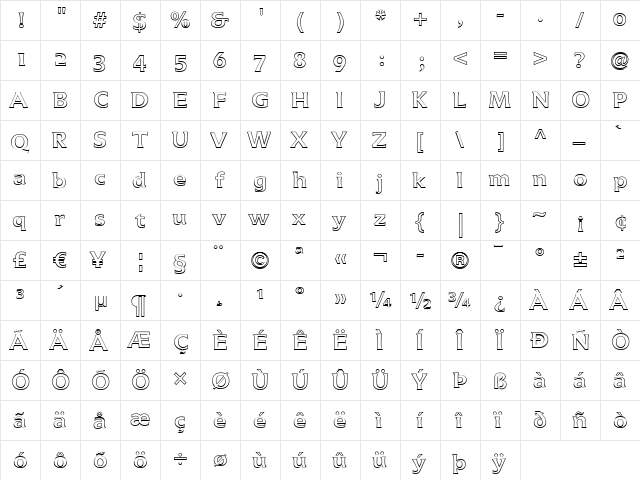
Icone LT BoldOutlineOsF Regular
Design Context for Icone LT BoldOutlineOsF Typeface
Icone LT BoldOutlineOsF is built around its visual character rather than neutral utility — its distinctive forms are designed to make an impression at display sizes. The heavy weight commands attention and anchors typographic hierarchies.
Font Pairing: Pair with a clean neutral sans-serif for body copy to let Icone LT BoldOutlineOsF's character lead without overwhelming the composition.
Pro Tip: Use Icone LT BoldOutlineOsF exclusively at display sizes — it was designed to be seen, not read at length. Let a neutral companion handle body copy.